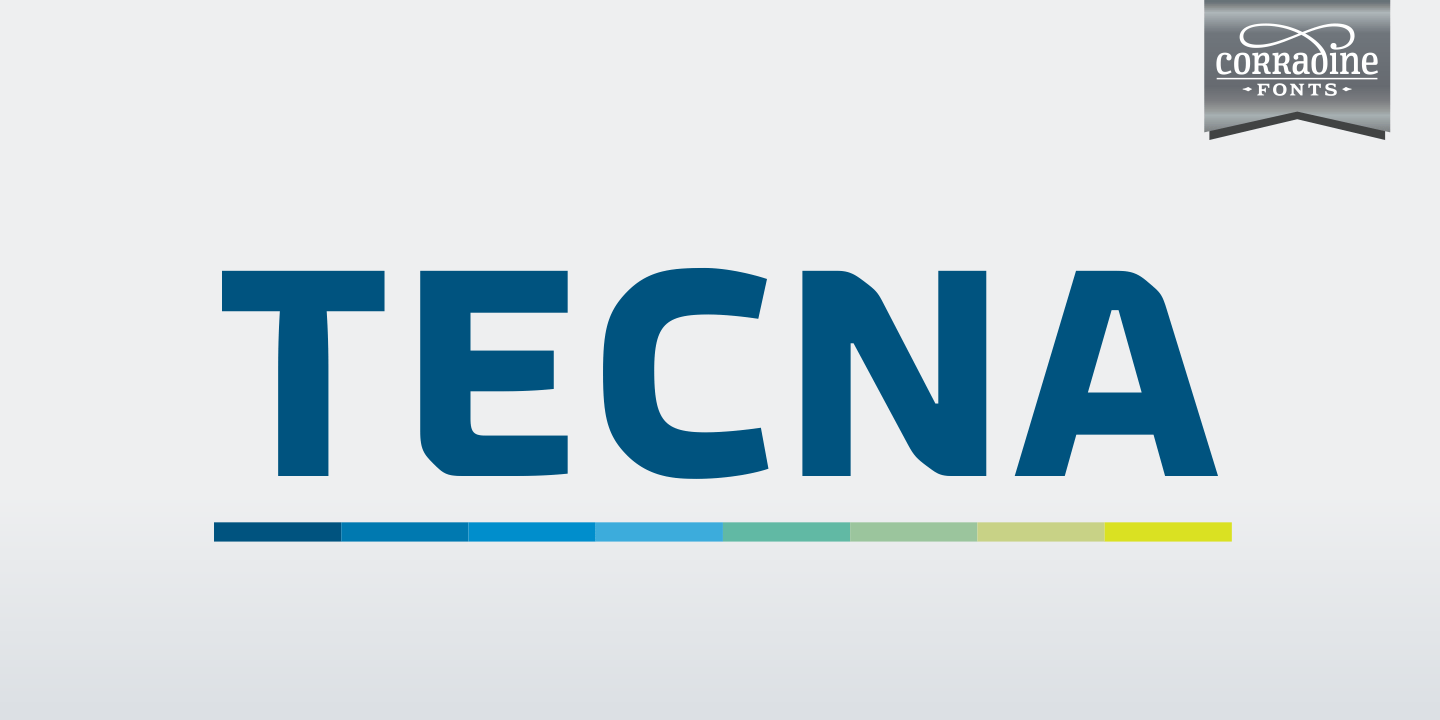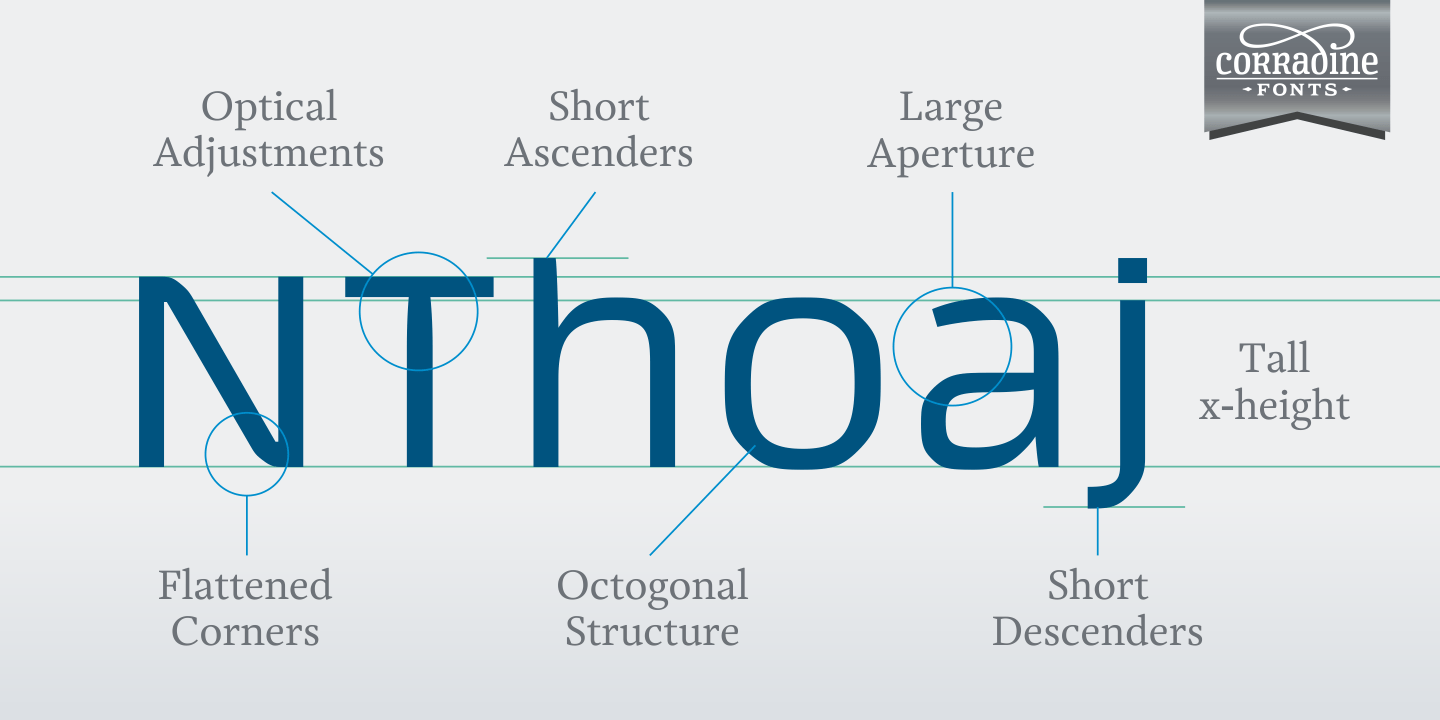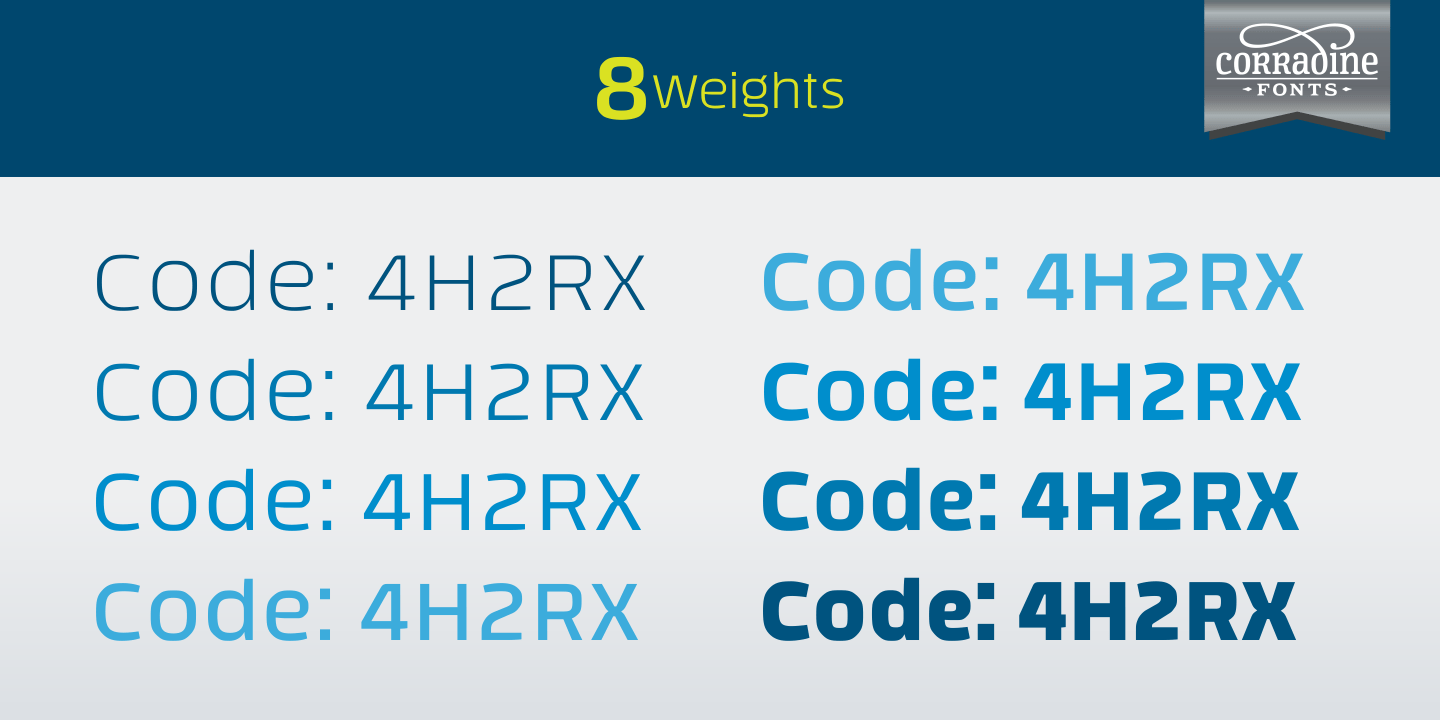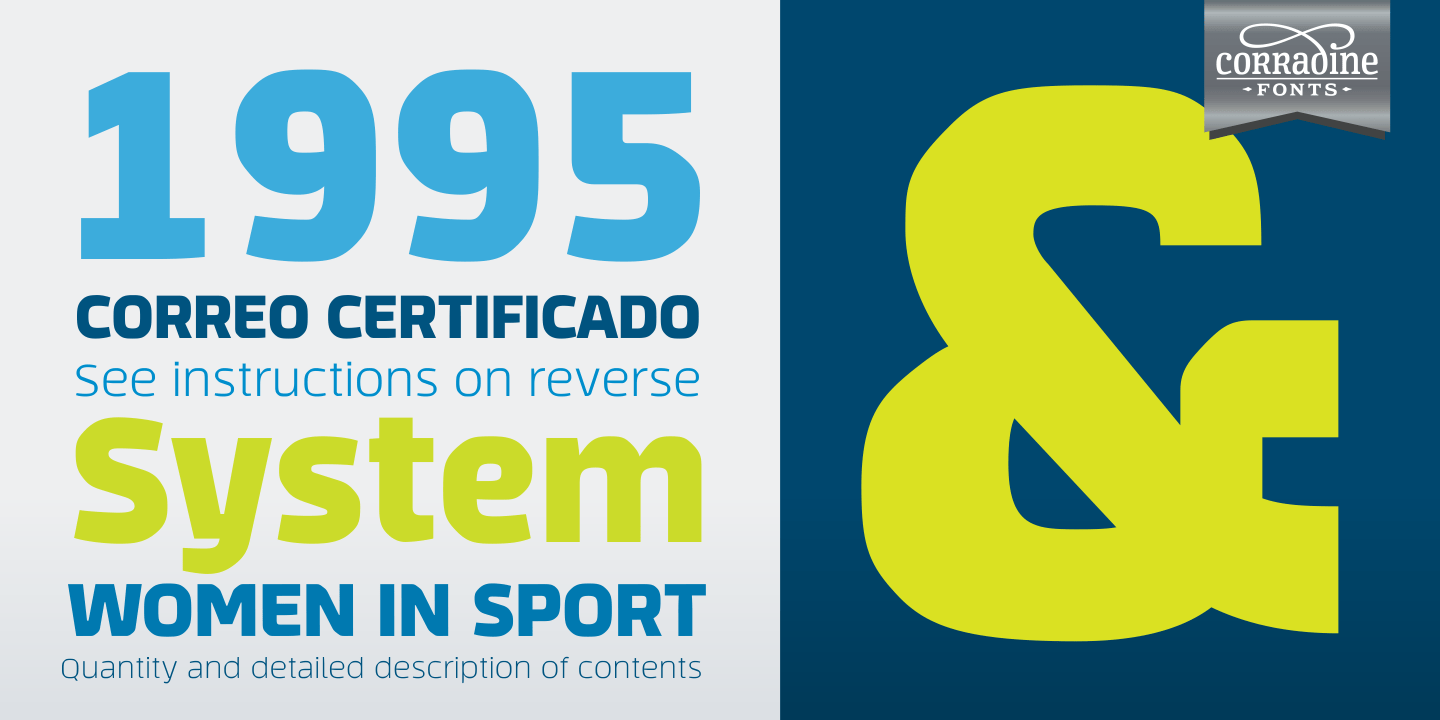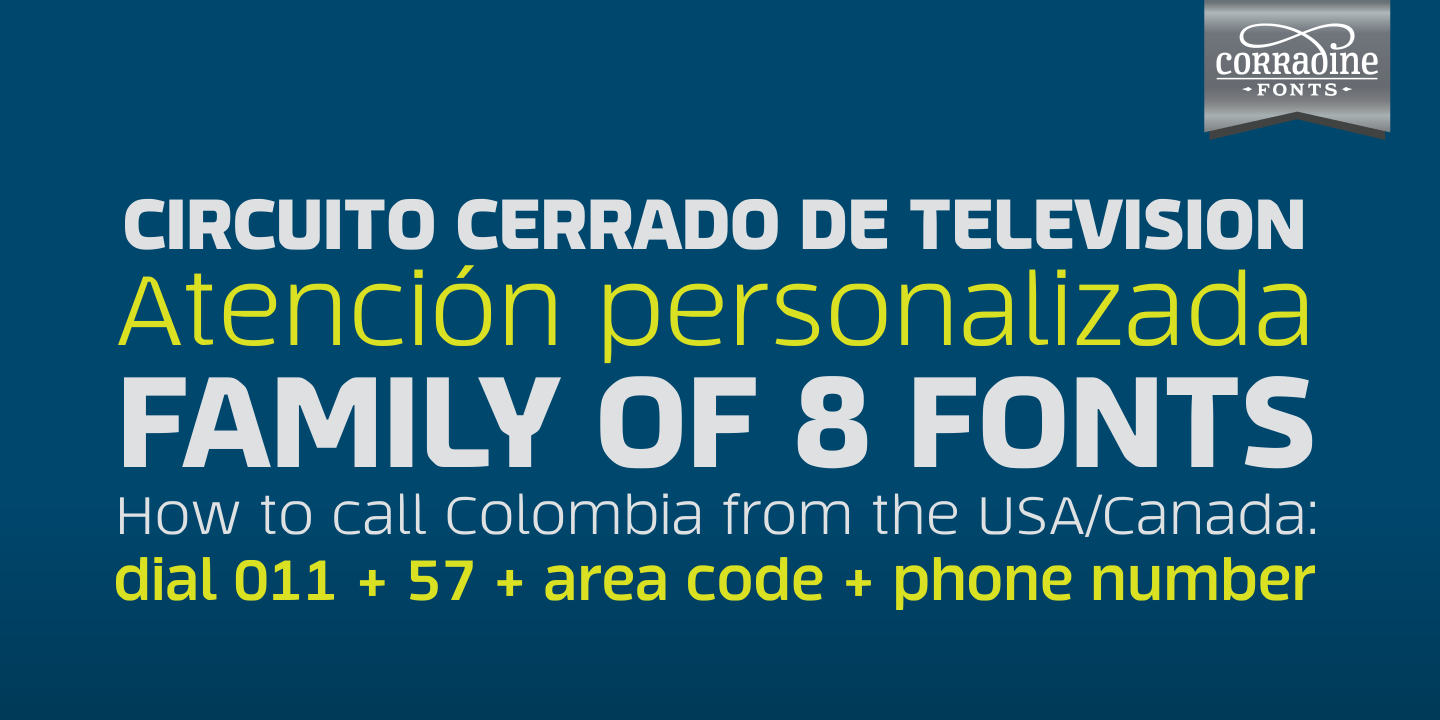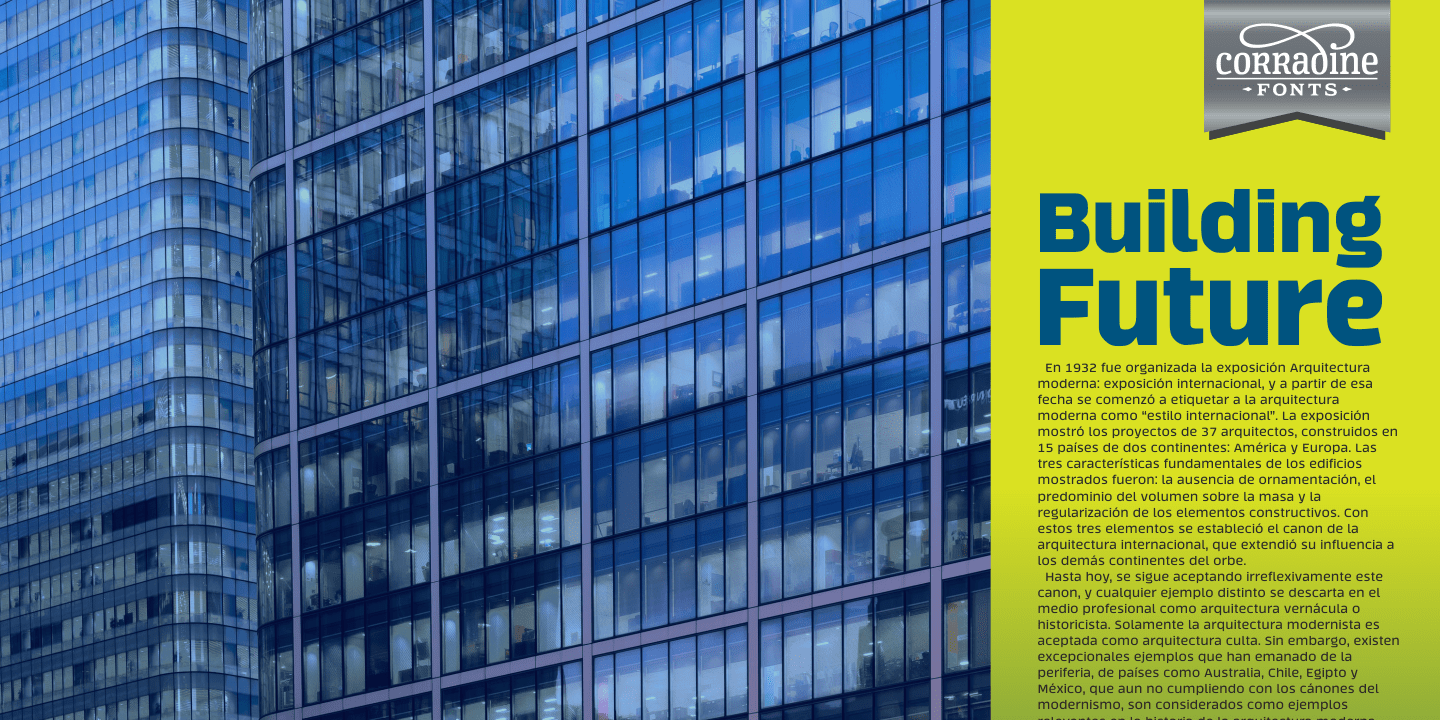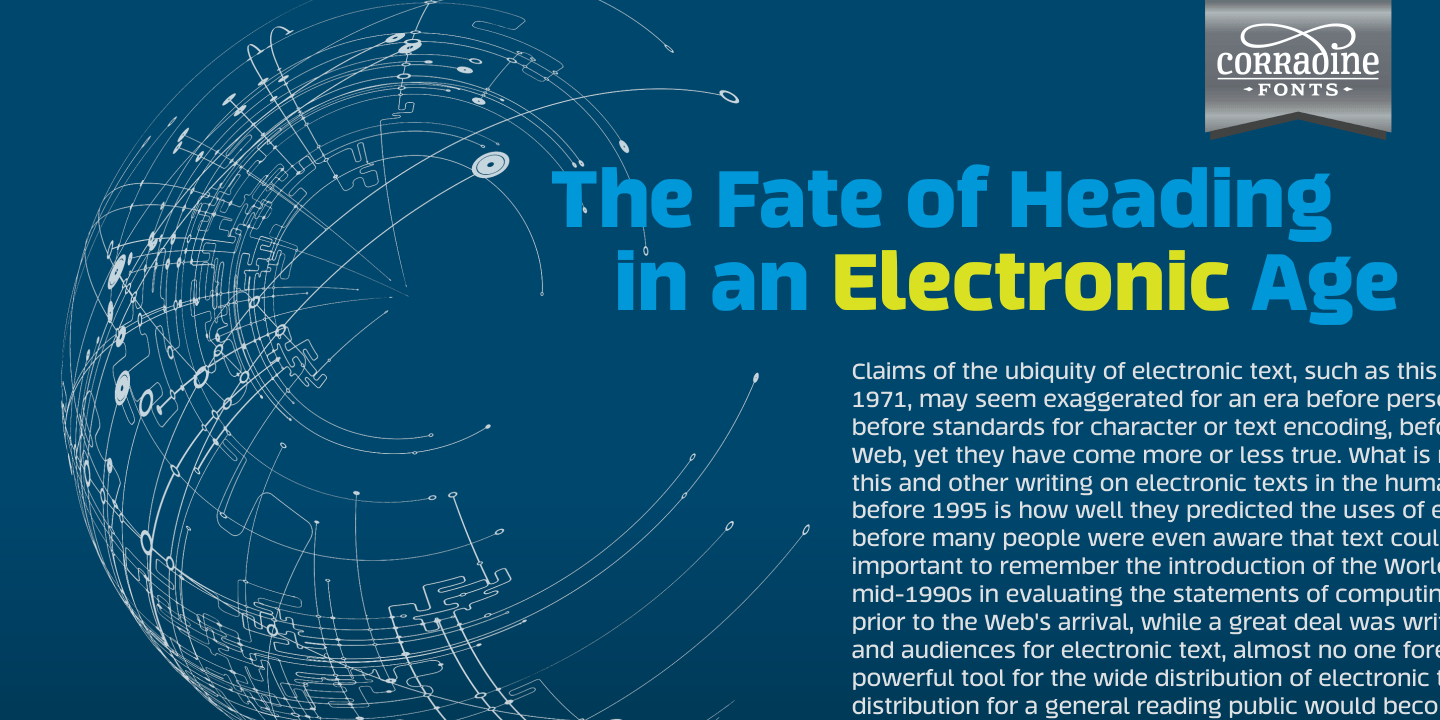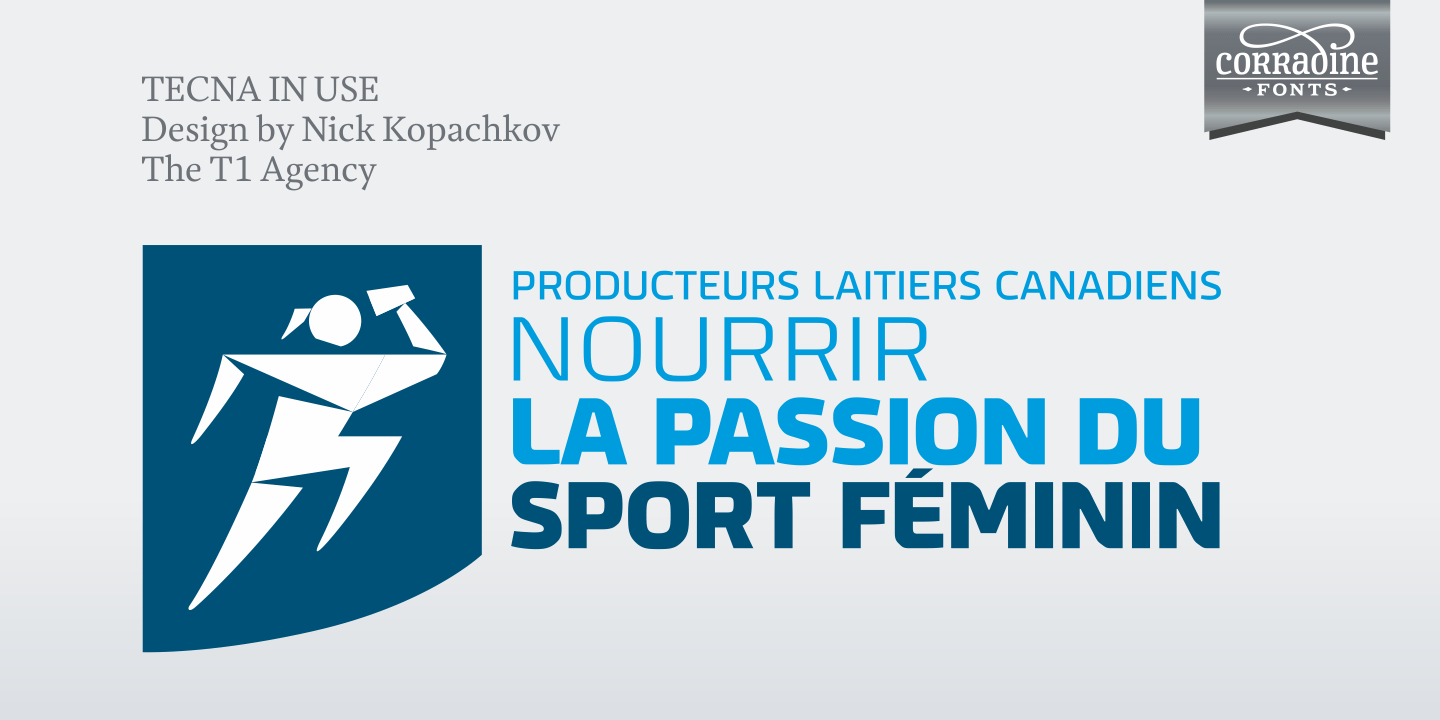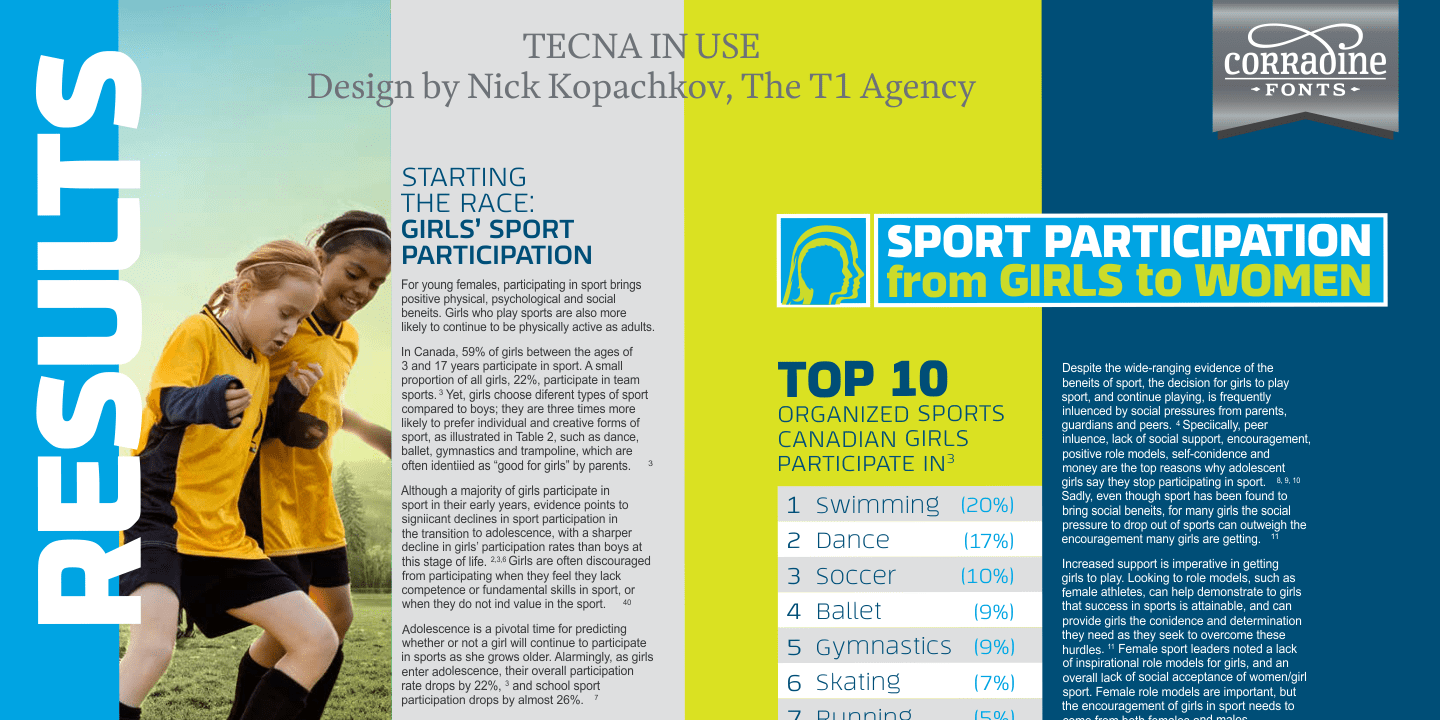
Tecna
Font Family by Corradine Fonts
Tecna is a modern sans typeface with straight cuts, rounded angles and curved thinnings at the endings that make the letter shapes fresher. The rounded characters are squarish giving to the layout a very structural appearance. Its wide proportions give big impact to the texts. It has a tall x-height that enhances its legibility in smaller sizes. Its character set has coverage for Western and Central European languages.